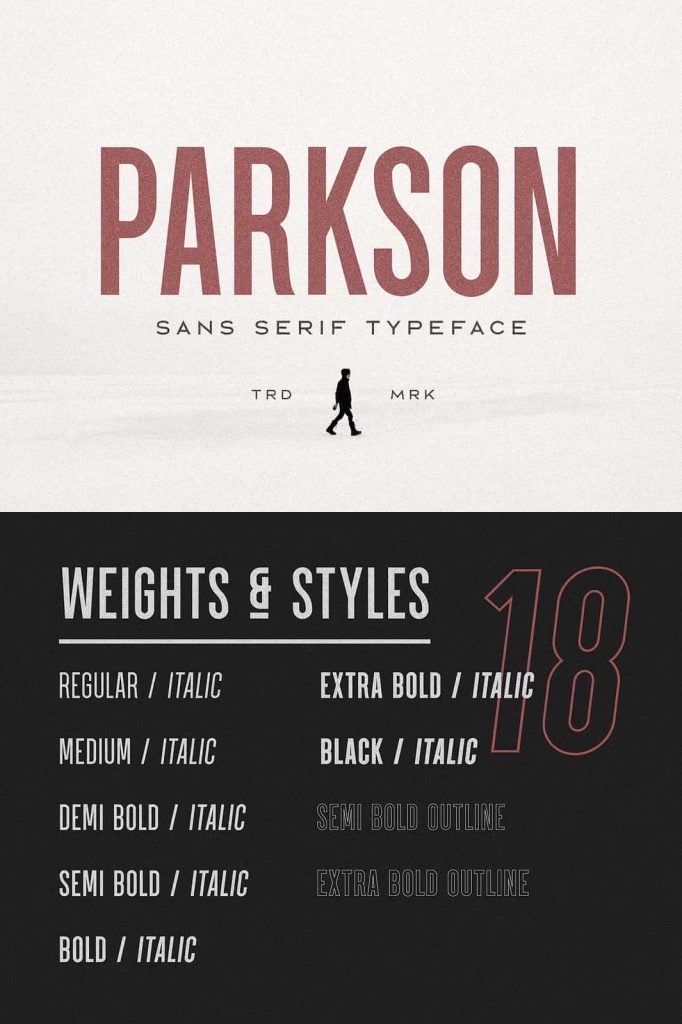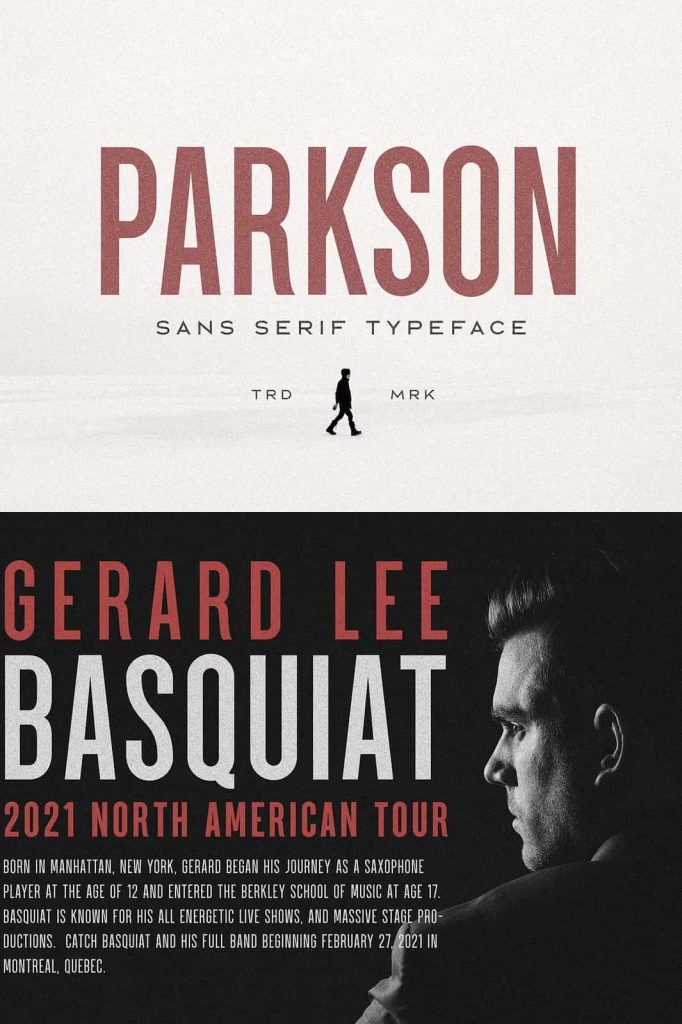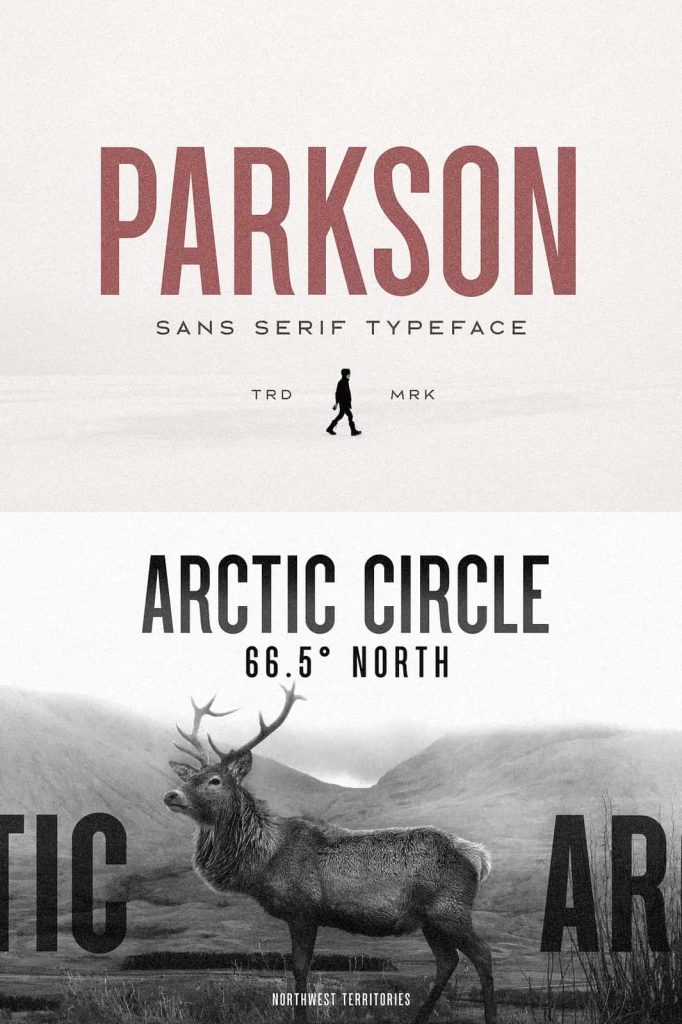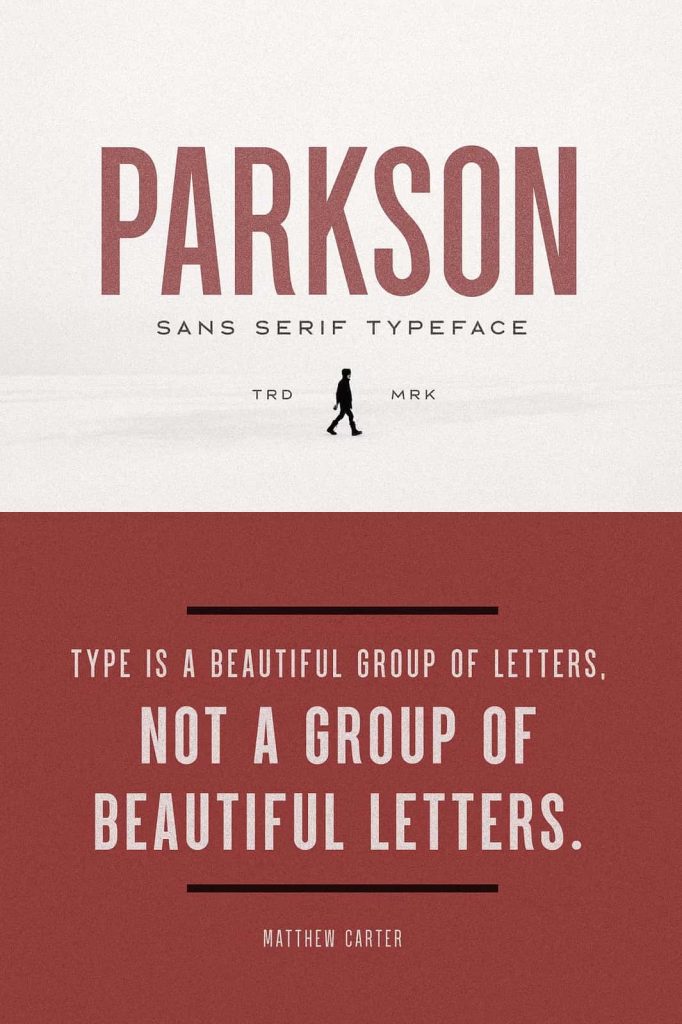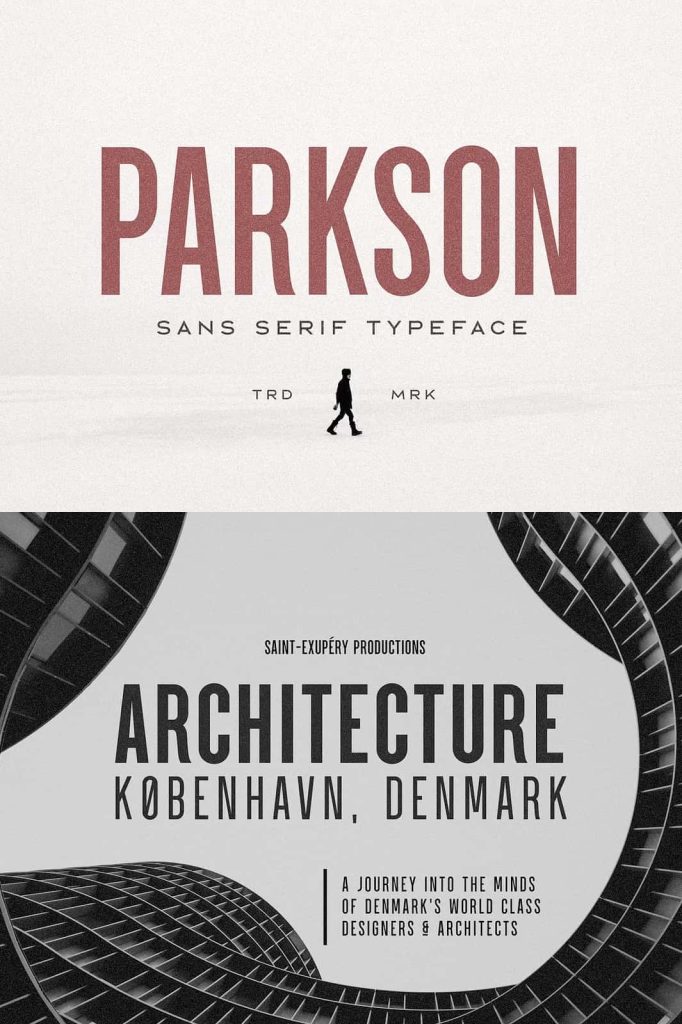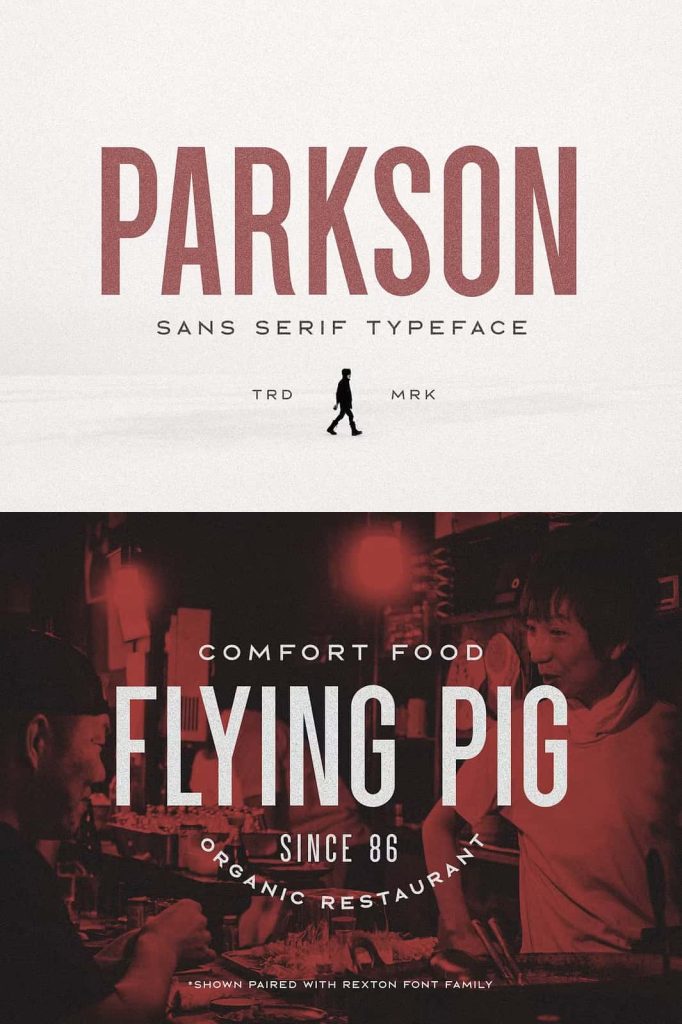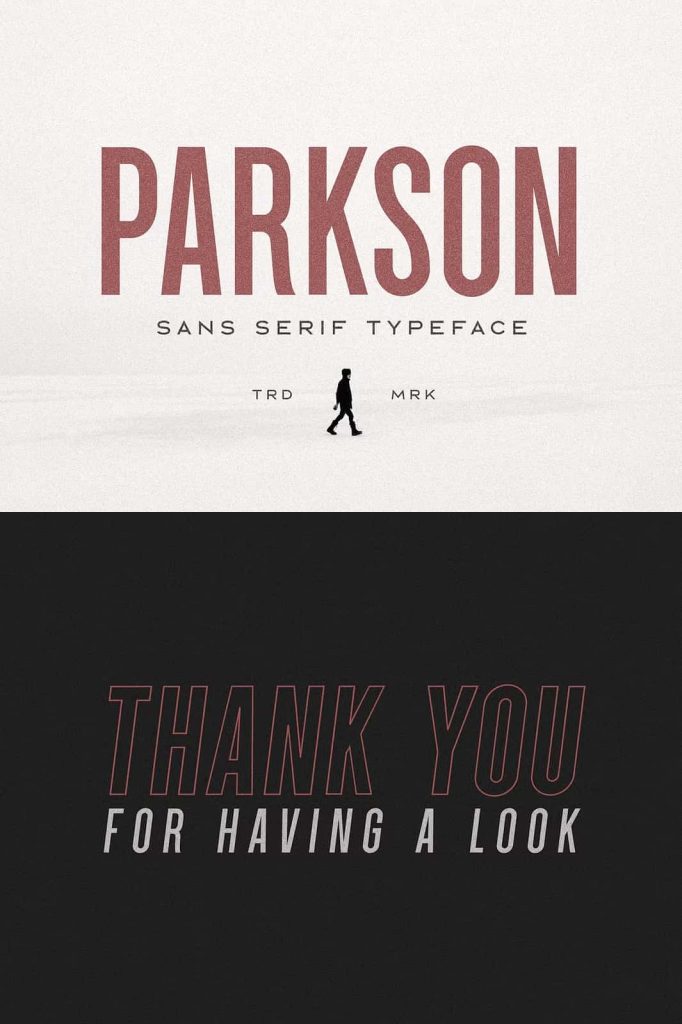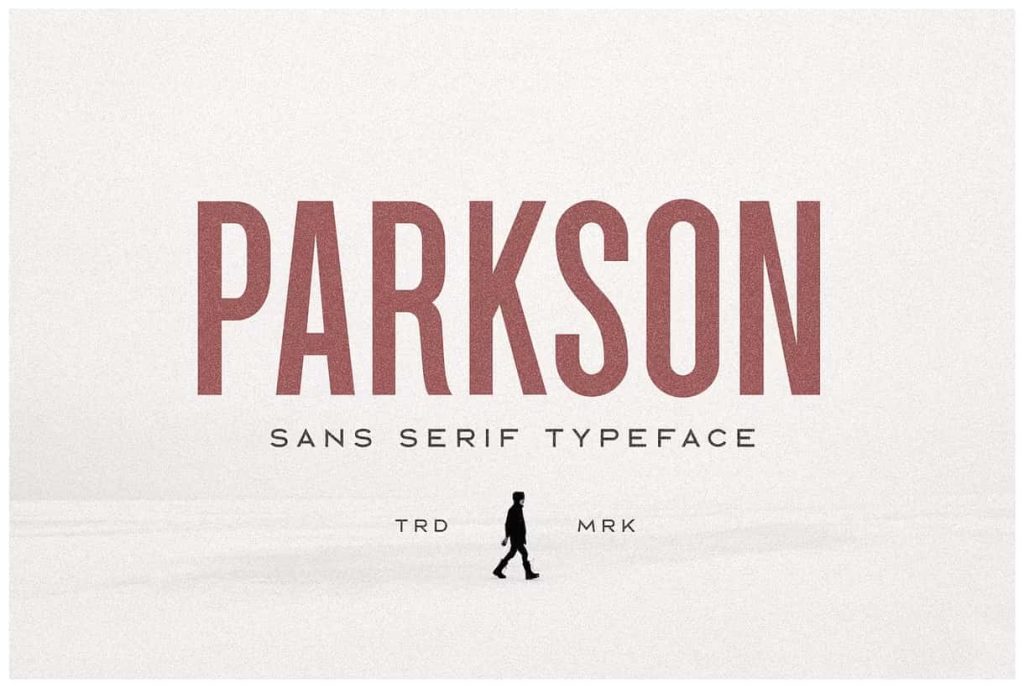
Parkson Sans Serif – 18 FontsleastedApril 4, 2025Fonts Parkson is a tall sans serif typeface of 7 weights along with italic and several outline versions. Download